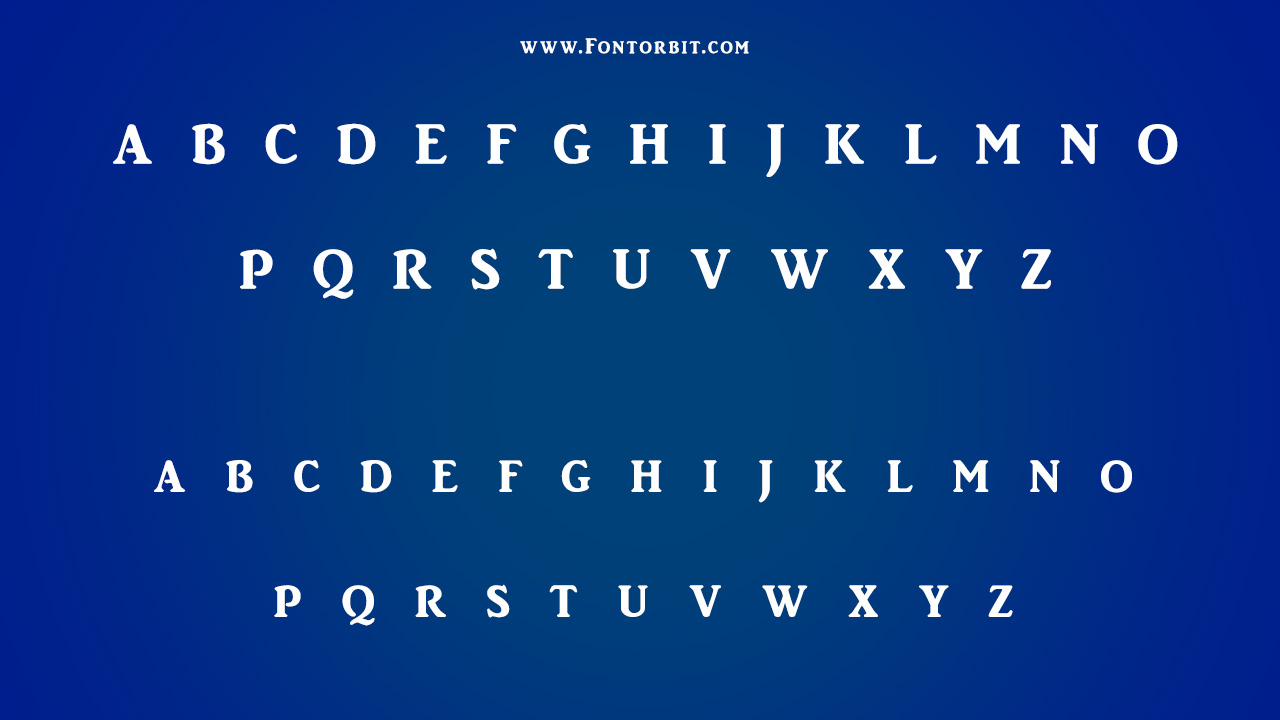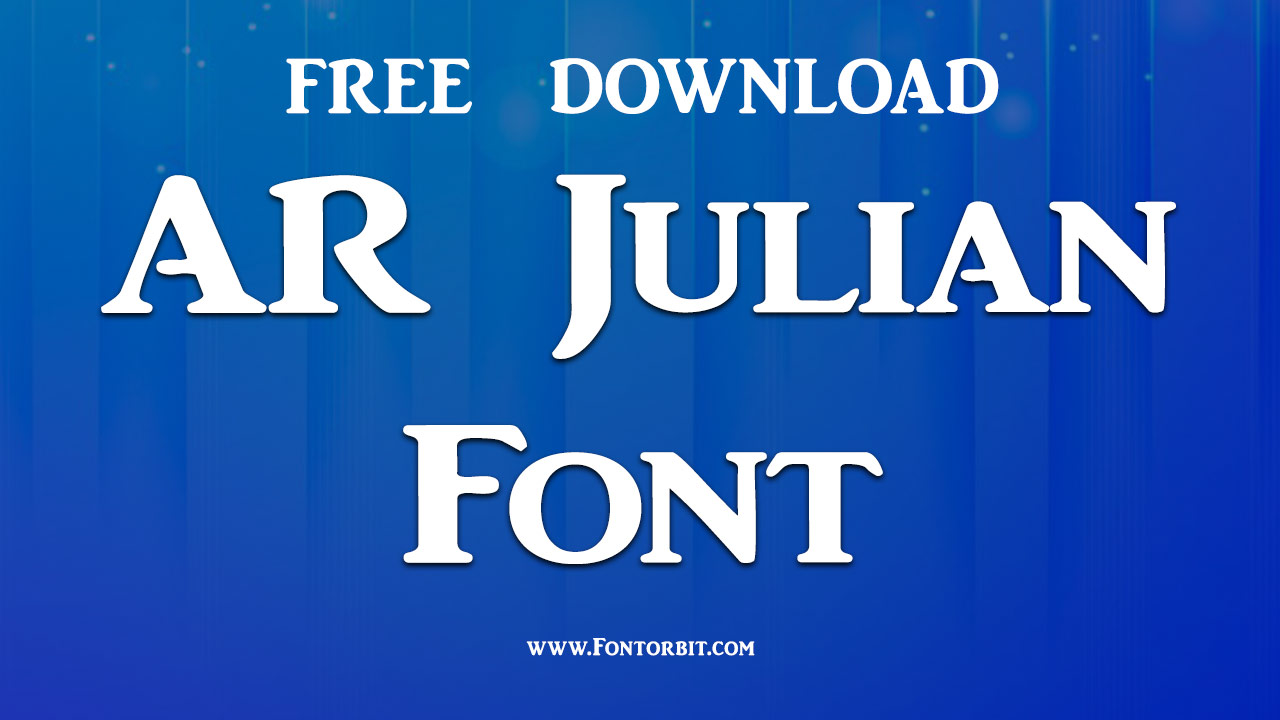
AR Julian is a classic serif font known for its elegant and timeless design. It was created by well-known designer James Lewis and first released in 1997.
Its clean and professional style makes it a versatile option for various design projects, from branding to print media. AR Julian belongs to the serif font family and is widely recognized for its readability and refined aesthetics.
AR Julian Family Includes
AR Julian has been popular due to its smooth letterforms and classic look. This font family includes a range of styles, perfect for multiple uses:
- AR Julian Regular
- AR Julian Bold
- AR Julian Italic
Notable Uses Of AR Julian Font
The AR Julian font is often utilized for formal and professional projects. Its clean and readable design makes it suitable for a variety of occasions, including:
- Books
- Websites
- Trailers
- Vehicle wraps
- Animated logos
- Office branding
AR Julian is ideal for use in situations where clarity and professionalism are important. You can use this font in:
- Print media such as brochures, flyers, and posters
- Branding materials for businesses
- Formal documents and presentations
- Invitations for formal events like weddings or corporate gatherings
AR Julian is a classic serif font with a refined, professional appearance that makes it suitable for a wide variety of uses. Its elegant and versatile style ensures that it remains a popular choice in design projects requiring a touch of sophistication and readability.
3.What Font Family Does AR Julian Belong To?
AR Julian belongs to the serif font family.
4.Where Can I Use The AR Julian Font?
AR Julian is perfect for use in branding, editorial designs, formal documents, and invitations.
5.Is AR Julian Similar To Times New Roman?
Yes, AR Julian shares some similarities with Times New Roman, as both are serif fonts.